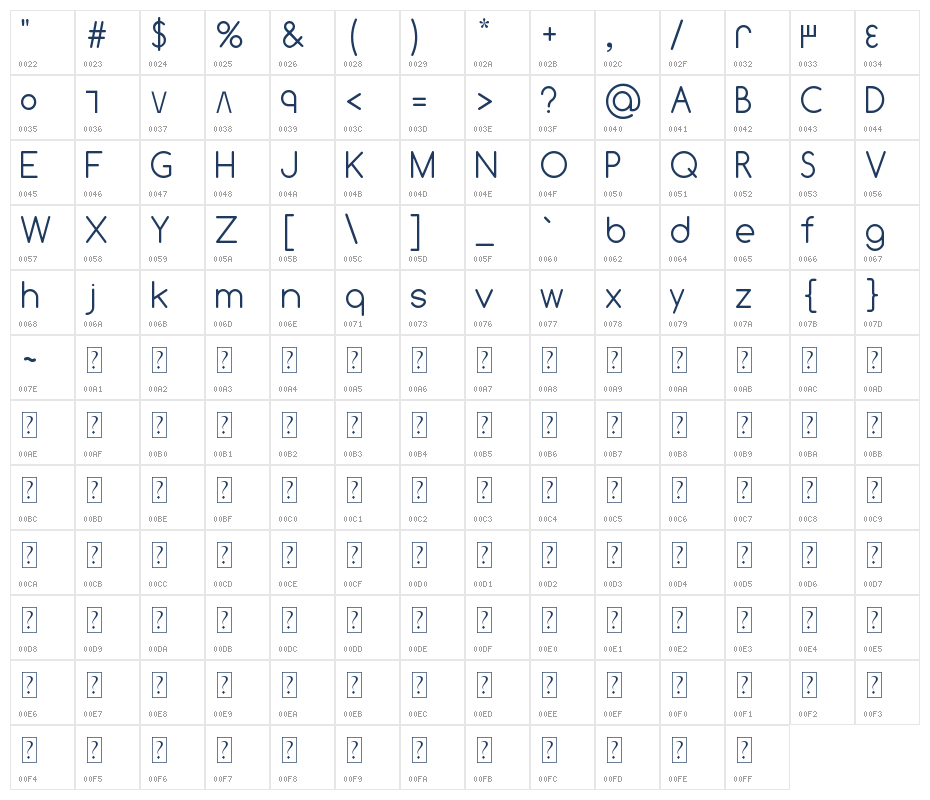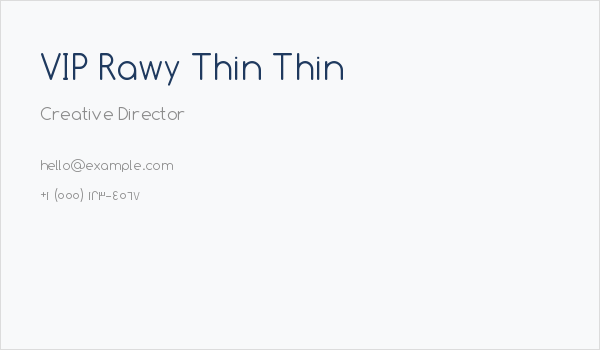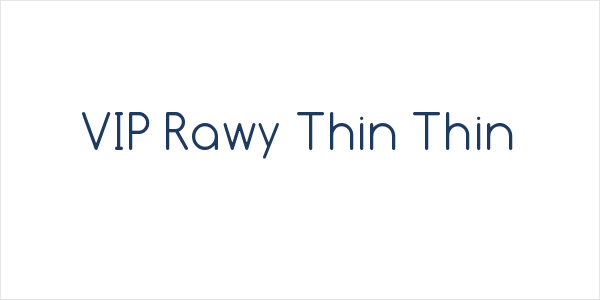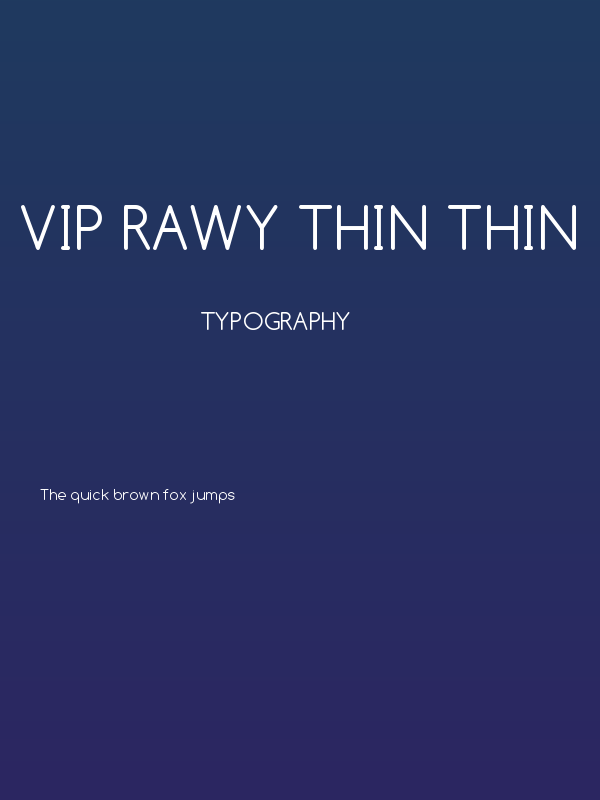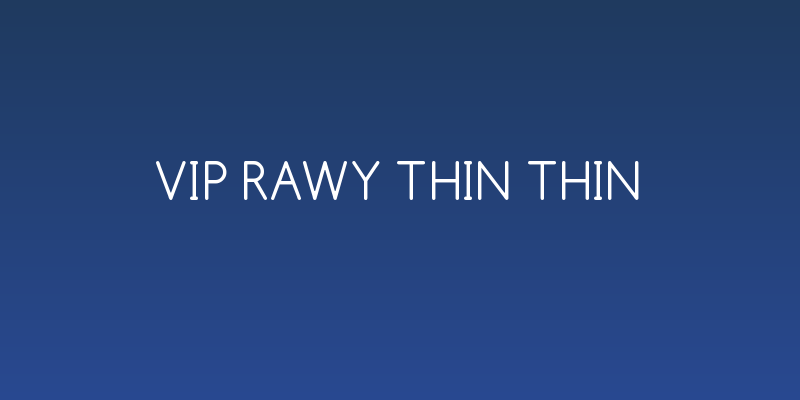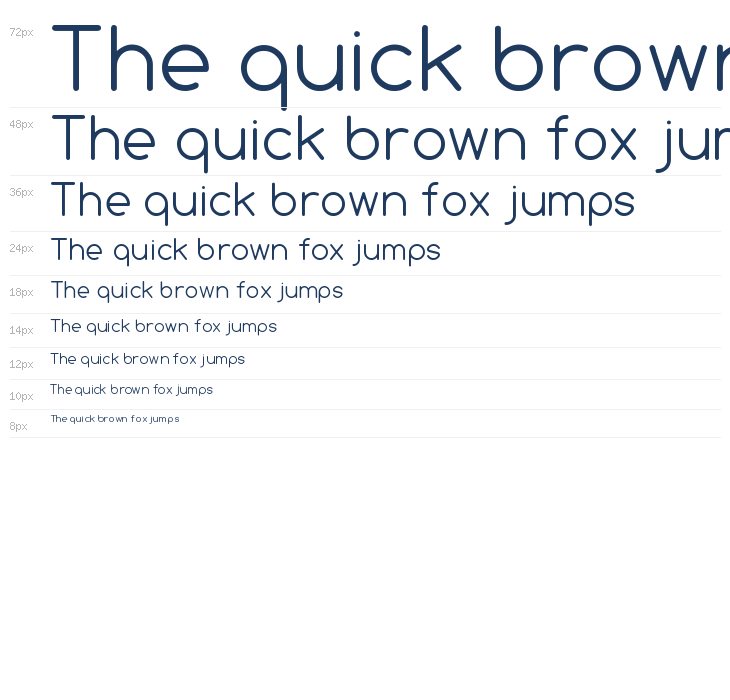
VIP Rawy Thin Thin Font
VIP Rawy Thin Thin Description
This font features an ultra-thin and elegant design, characterized by its minimalistic and streamlined appearance. The strokes are consistently thin, providing a sleek and modern aesthetic. The characters are well-proportioned, with a slight geometric influence that adds to its contemporary feel. The uppercase and lowercase letters maintain a uniform style, ensuring readability while retaining a distinctive look. The numerals and special characters are crafted with the same attention to detail, making them seamlessly integrate with the alphabet. This font is ideal for projects that require a refined and sophisticated touch.
| Proposed Projects | Ideal for luxury branding, high-end fashion magazines, minimalist design projects, and elegant invitations. |